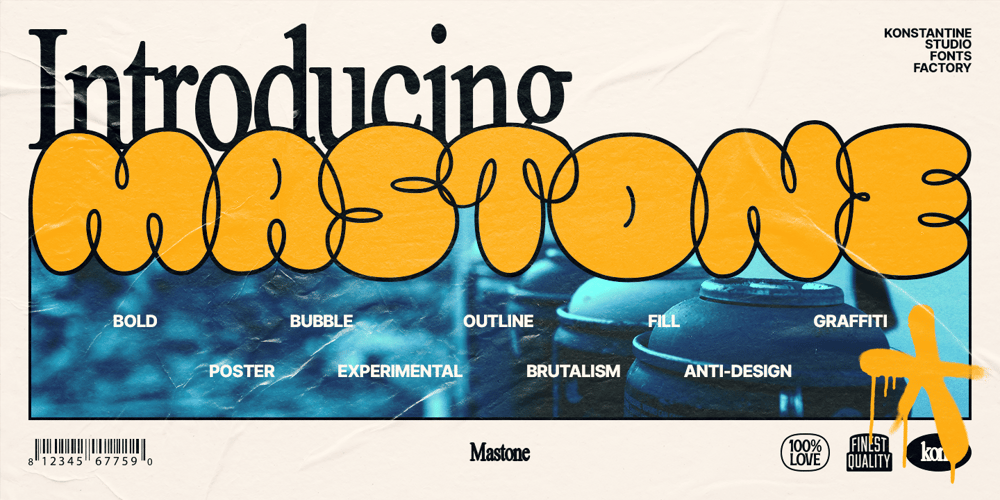
Mastone
Mastone font
Mastone Font Family was designed by Abdilah and published by Konstantine Studio. Mastone contains 2 styles and family package options. Mastone was inspired by the bubble typography trends nowadays in the graphic design industry. A fresh mix of y2k culture, streetwear visuals, and brutalism yet an experimental touch of bubble throw-up graffiti styles.